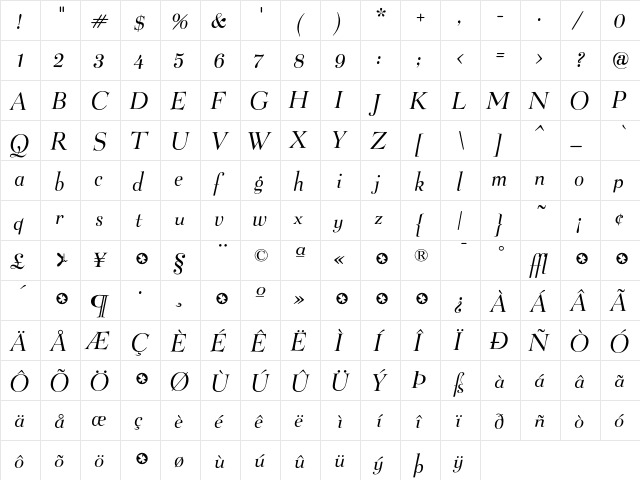
Belucian BookItalic
Design Context for Belucian Typeface
Belucian takes a measured approach to typography — its balanced proportions and neutral character make it a reliable workhorse for both digital and print work. The dynamic lean of this cut emphasises speed and emphasis in any layout.
Pro Tip: Use Belucian for emphasis, pull quotes, and subheadings where its slanted energy can add rhythm to the layout.